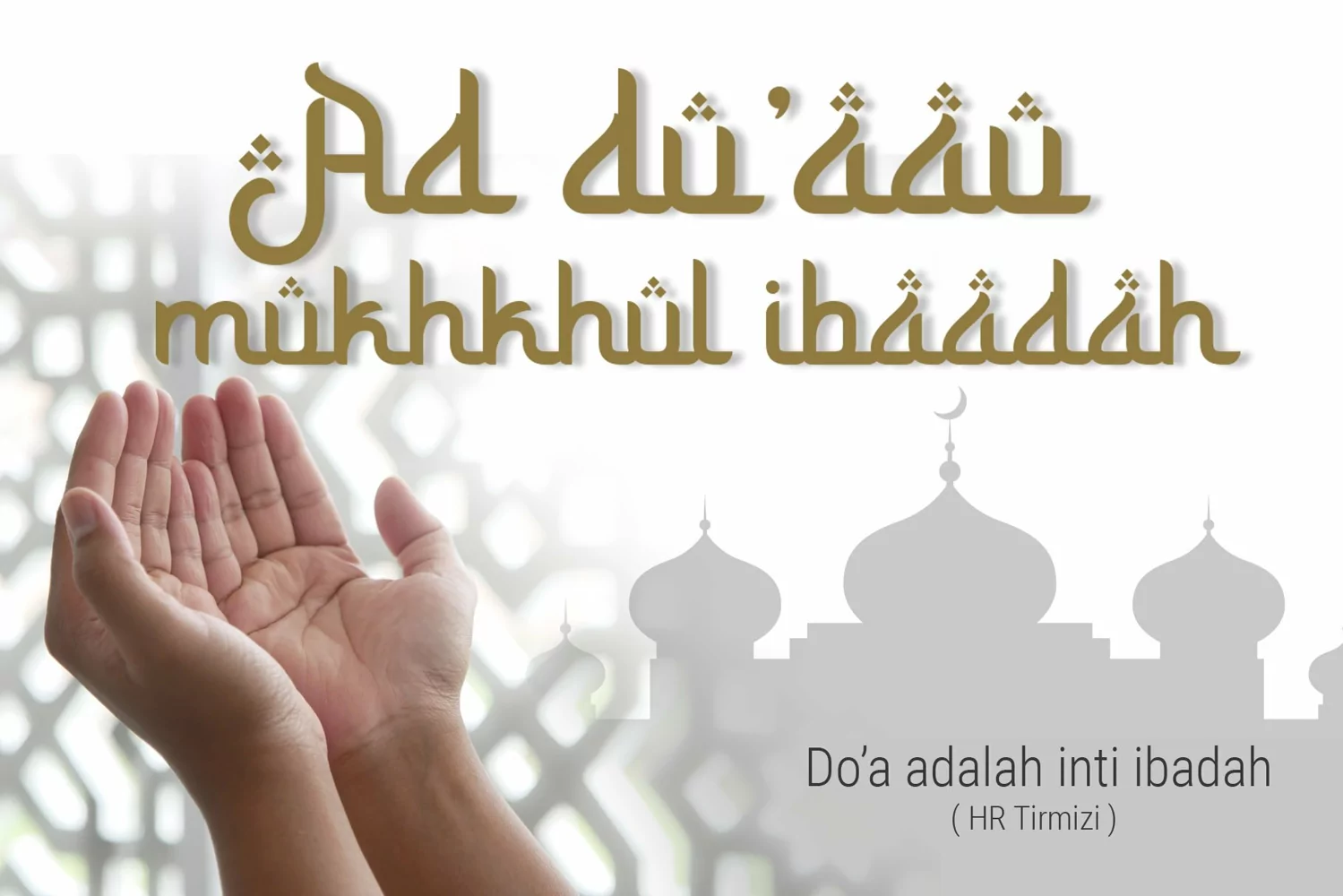
Sururim Maudunah
Sururim Maudunah is an arabic decorative font that has a middle east style font, and it was crafted by hand to add a natural handmade feeling and i make it clean with pentool.
If you looking for decorative font with arabic style for your title or even branding and logotype, Sururim Maudunah is a great choice for that purpose.
Opentype featuresSururim Maudunah font is very good looking in logotype, labels, decorative lettering, playful design, product packaging, invitation titled, advertising and others.